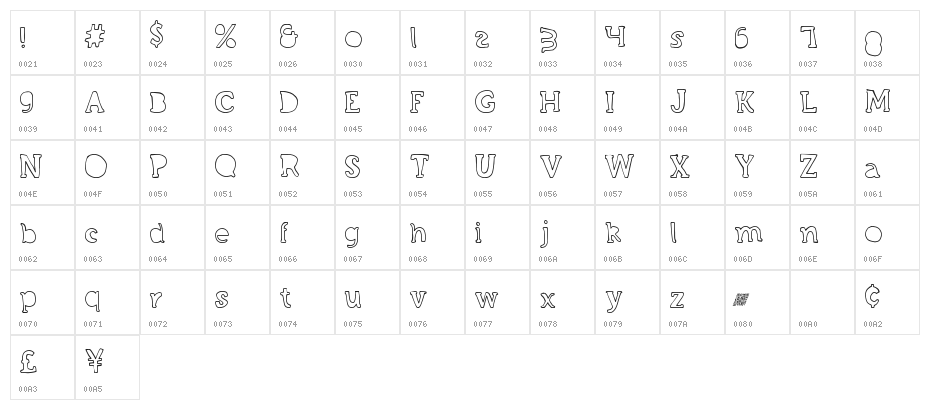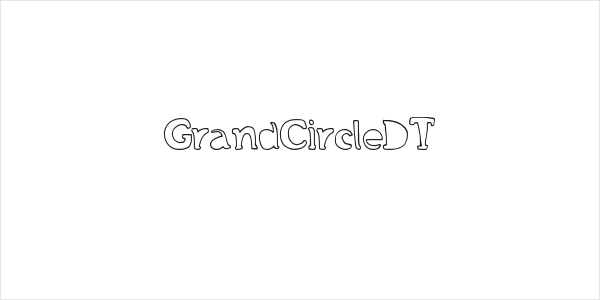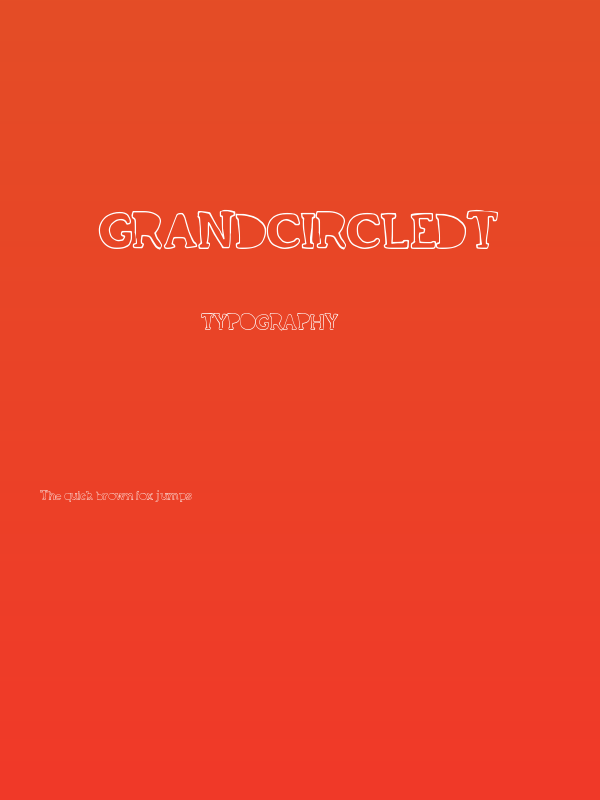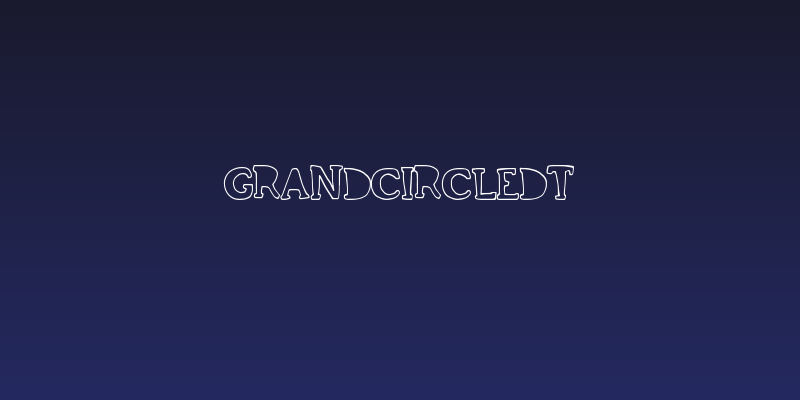
GrandCircleDT Font
GrandCircleDT Description
This font features a playful and whimsical design with a hand-drawn aesthetic. The characters are outlined, giving them a hollow appearance that adds a unique charm. The uppercase and lowercase letters maintain a consistent style, with rounded edges and a slightly irregular form that enhances the casual and friendly feel. The numbers and special characters follow the same design principles, ensuring a cohesive look across all elements. This font's distinctive style makes it stand out, perfect for projects that require a touch of creativity and fun.
| Overall Style | Whimsical, Casual, Creative |
| Use Case | Headlines, Posters, Branding |
| Proposed Projects | Ideal for children's books, playful branding, creative posters, and casual invitations. |